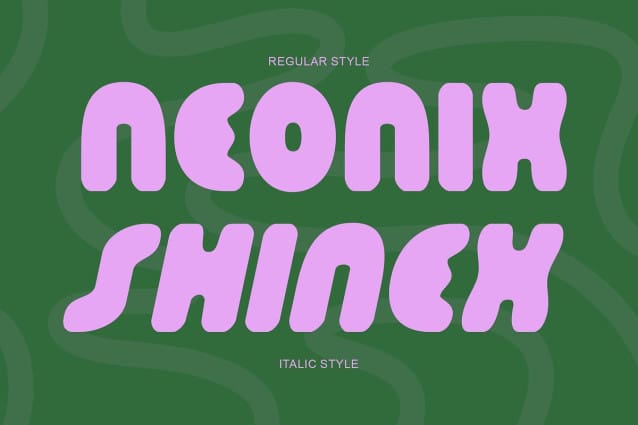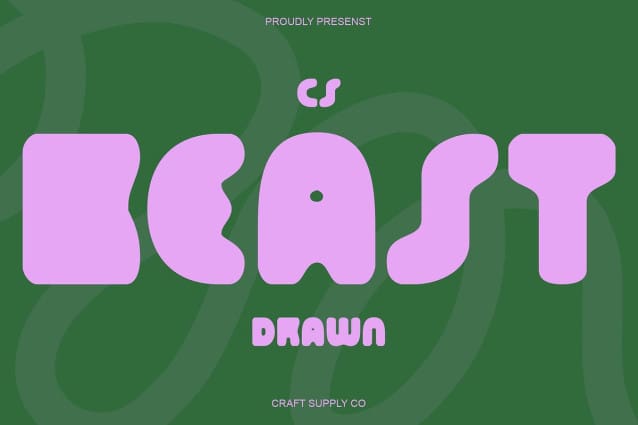
CS Beast Drawn Font
CS Beast Drawn Font – Bold Display Font with Drawn Texture: Strength with a Handcrafted Edge.Powerful Form with Chunky Style This is a bold display font designed to make a strong statement. Its heavy sans serif structure gives it a solid, confident presence, while the thick, chunky shapes ensure that every letter commands attention. This font is built for impact, giving your designs a bold and fearless personality.
Hand-Drawn Texture for Authentic Character What sets this font apart is its drawn texture a handcrafted detail that adds grit and depth to each stroke. This textured finish softens the rigidity of its form, introducing a natural, handmade energy that makes it feel both powerful and authentic.
Modern Boldness Meets Artistic Imperfection Combining modern sans serif construction with an organic drawn touch, This font strikes a perfect balance between precision and creativity. It’s bold and structured, yet warm and expressive ideal for designers who want their typography to feel alive and dynamic.
Perfect for Posters, Headlines, and Strong Branding This font thrives in bold visual applications. Whether featured in attention-grabbing posters, strong editorial headlines, or commanding brand identities, this font adds a distinctive edge that draws the eye and amplifies your message with style and strength.